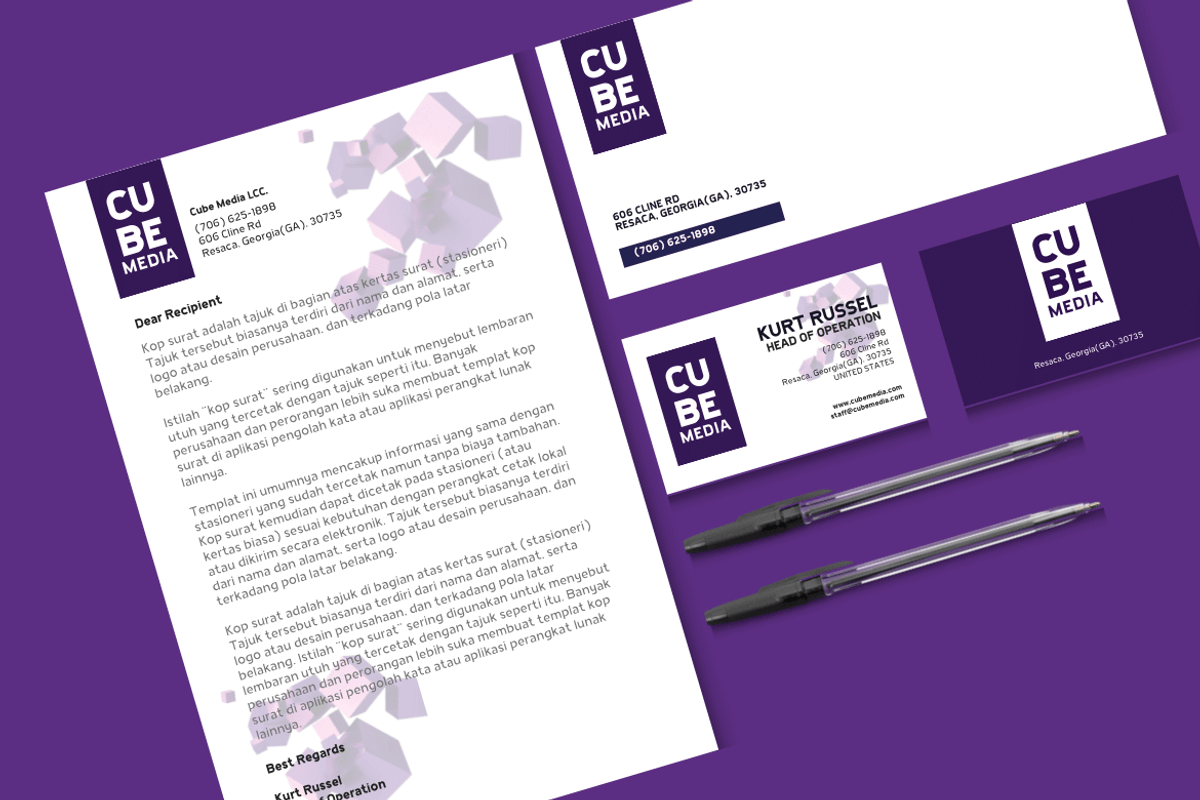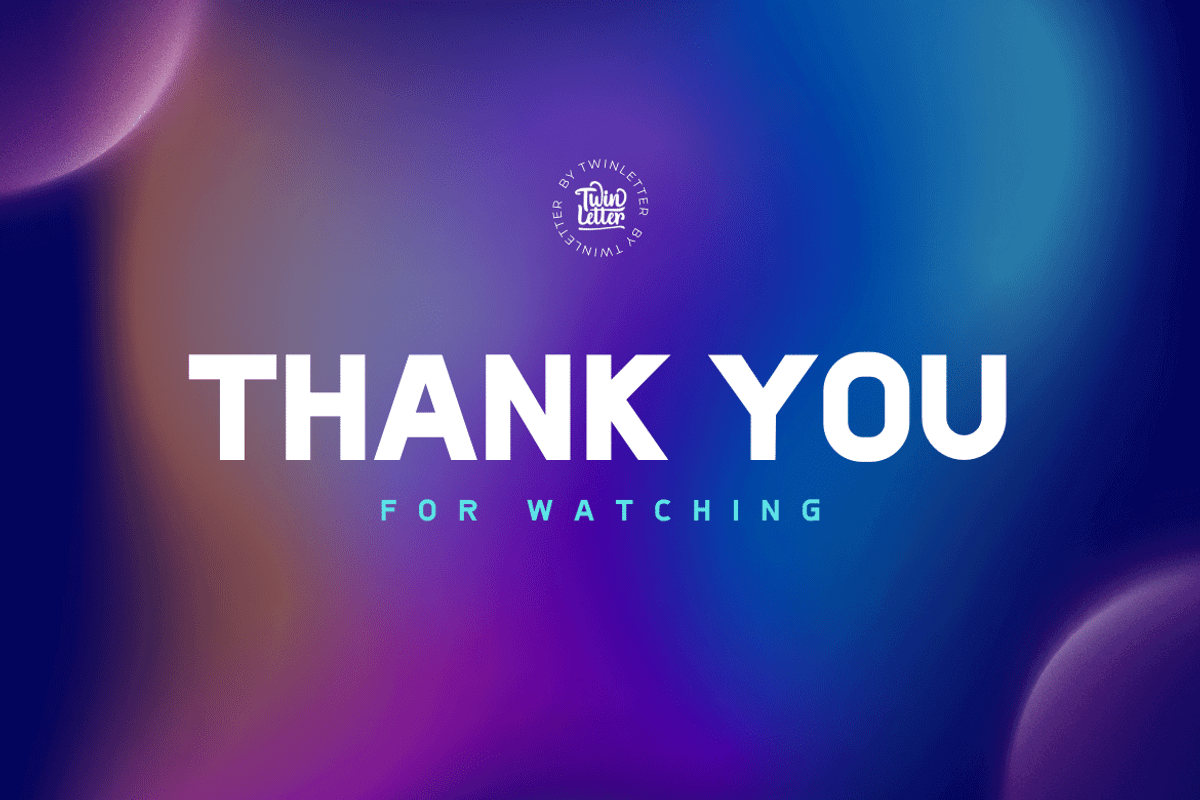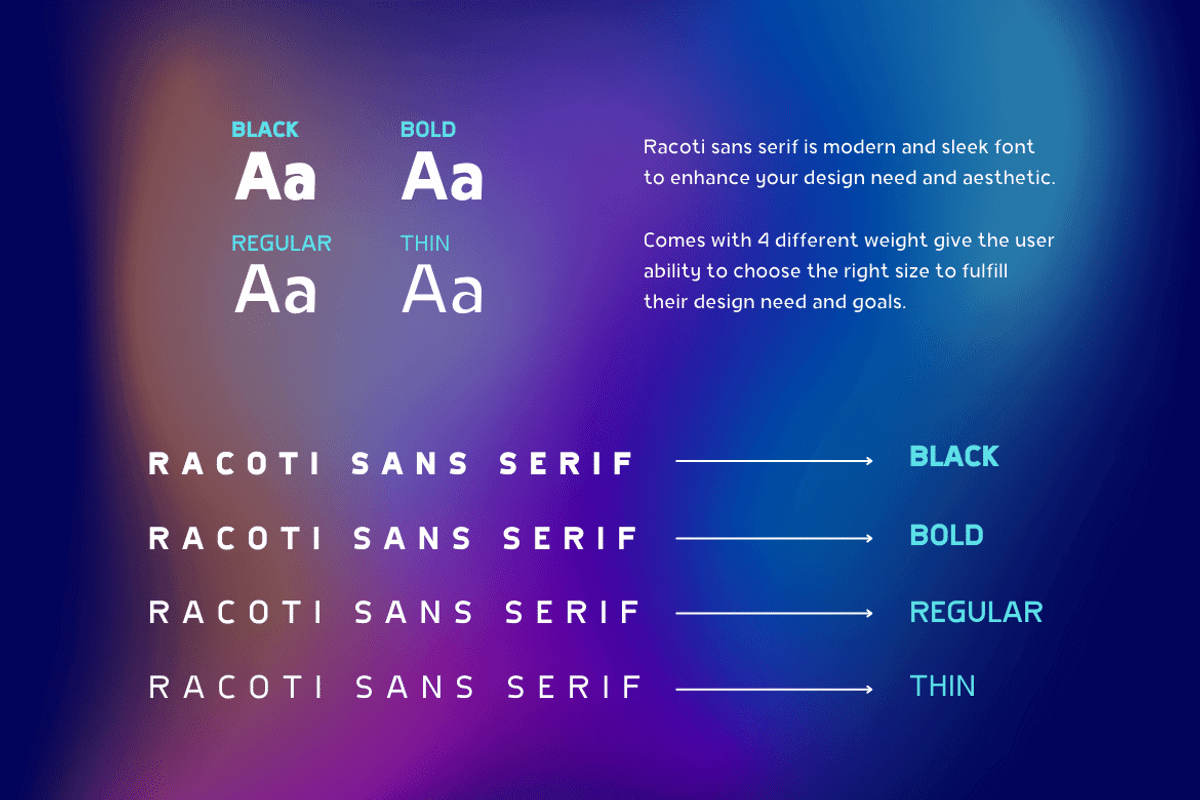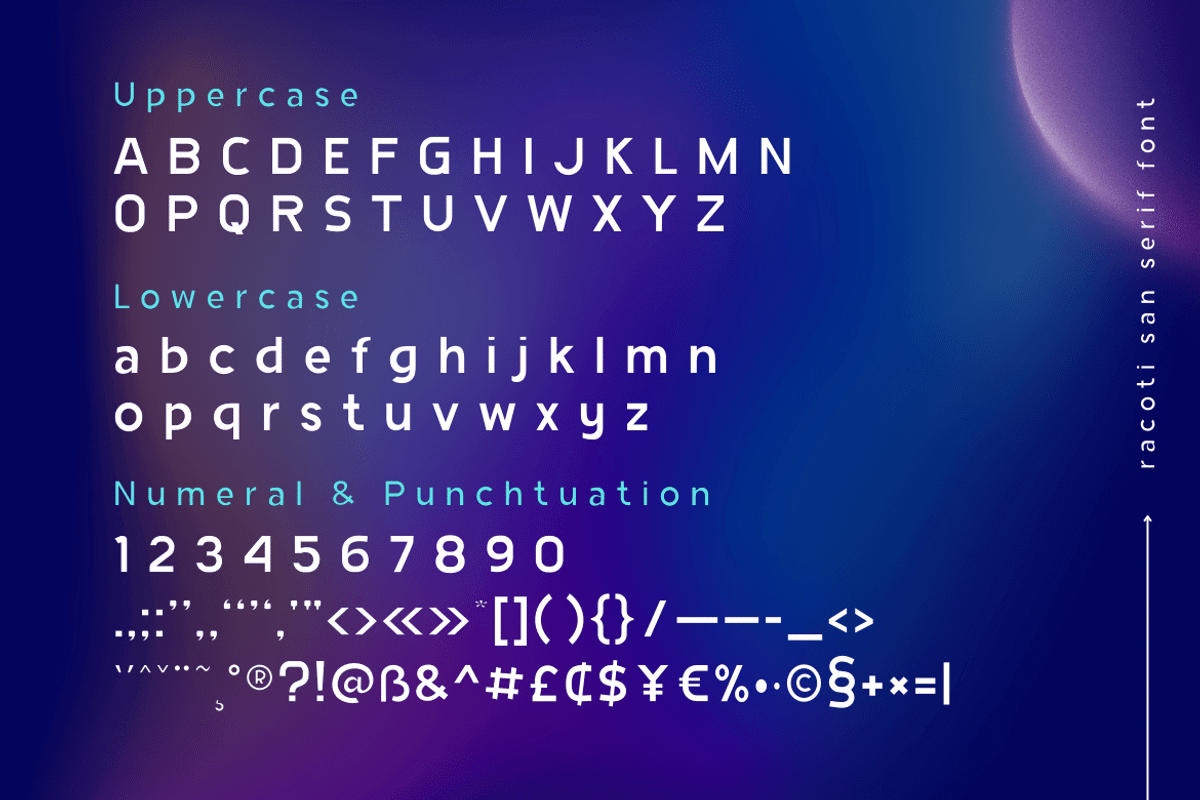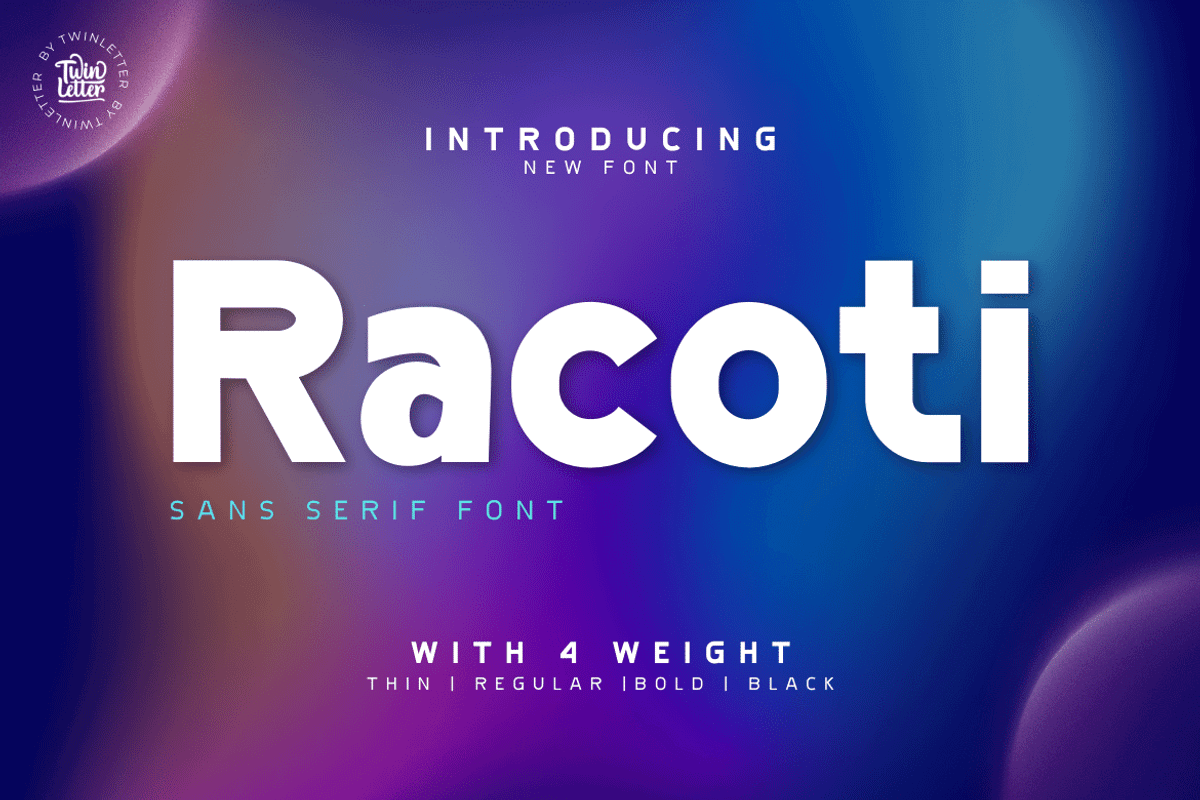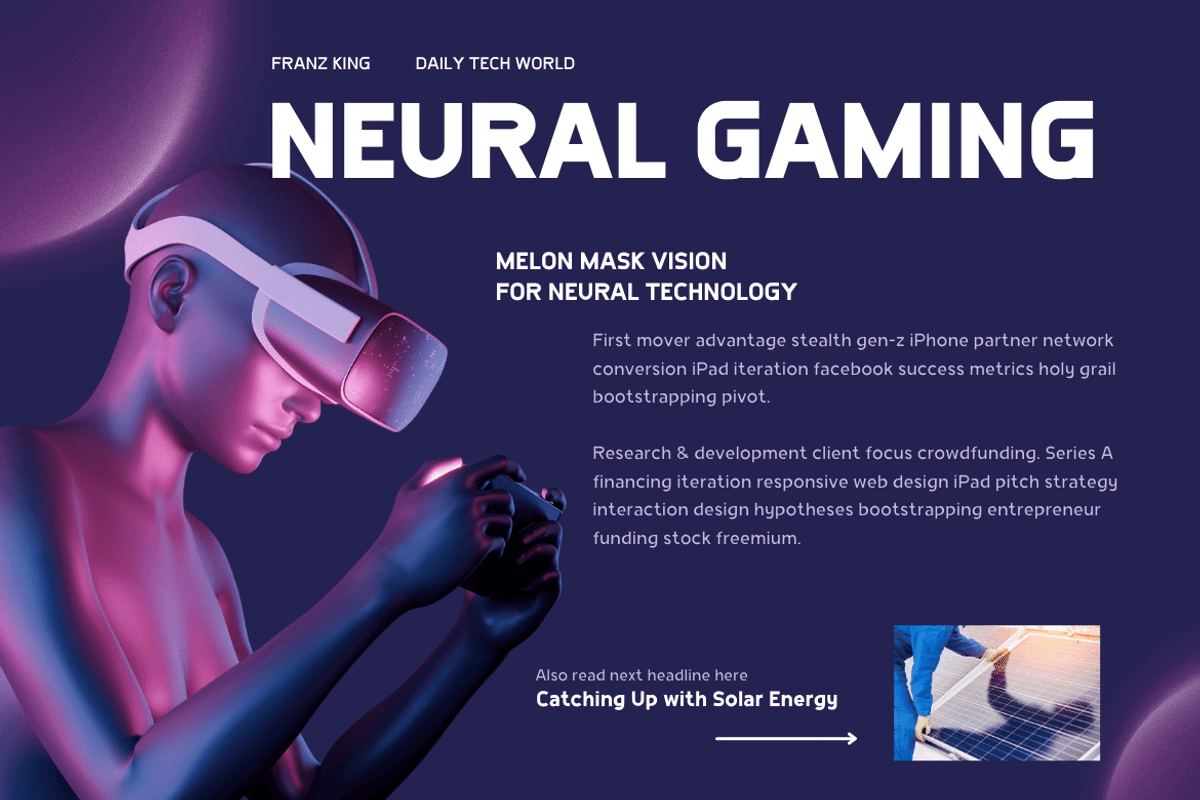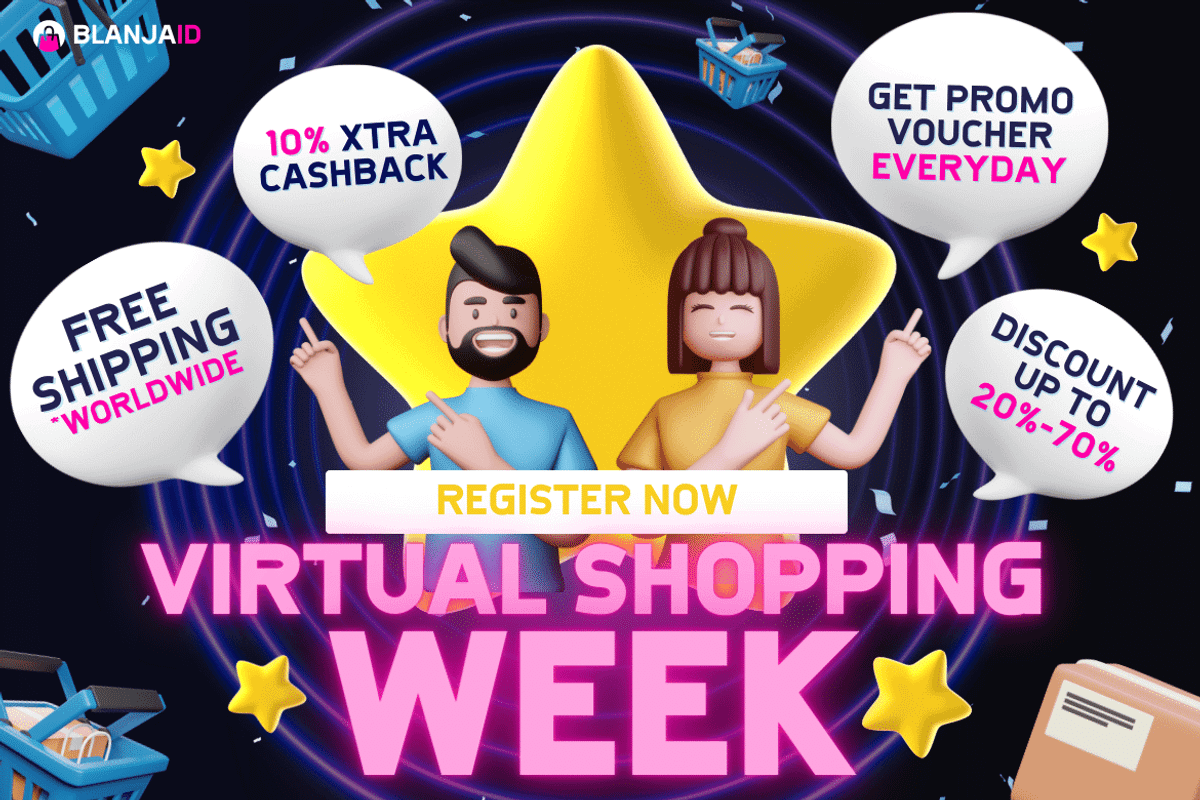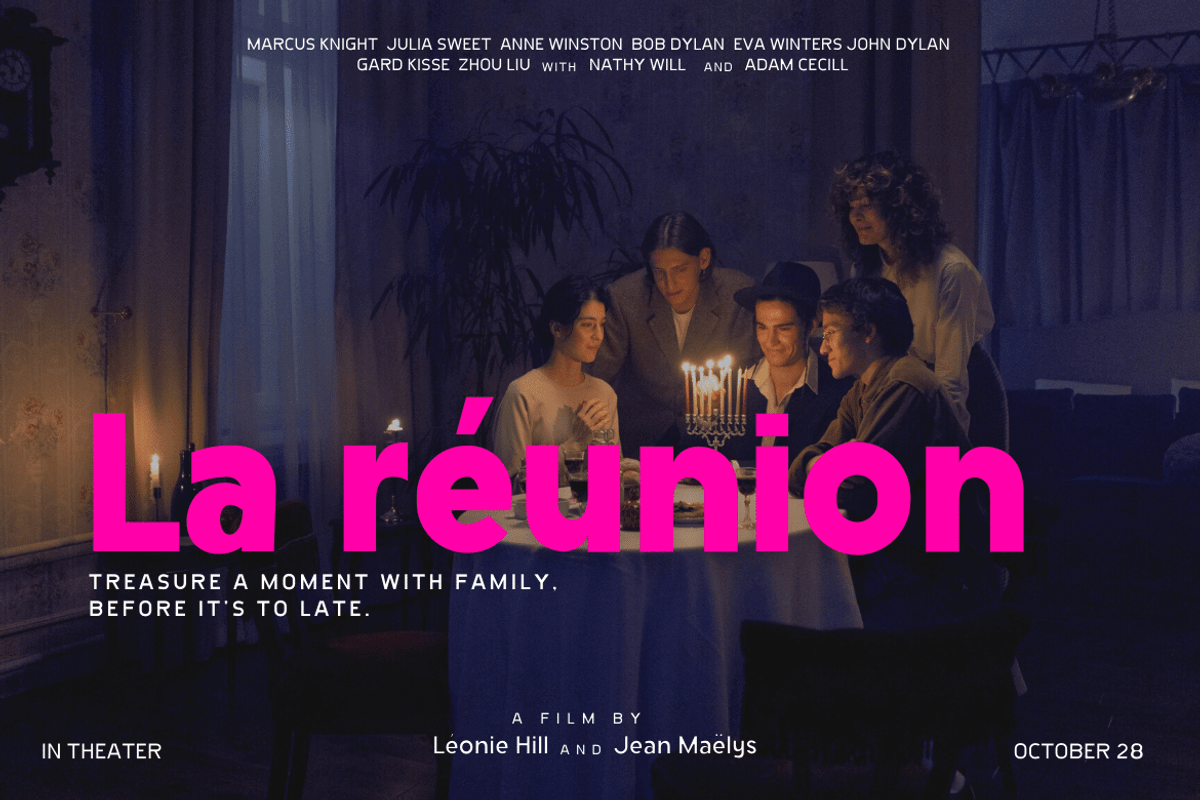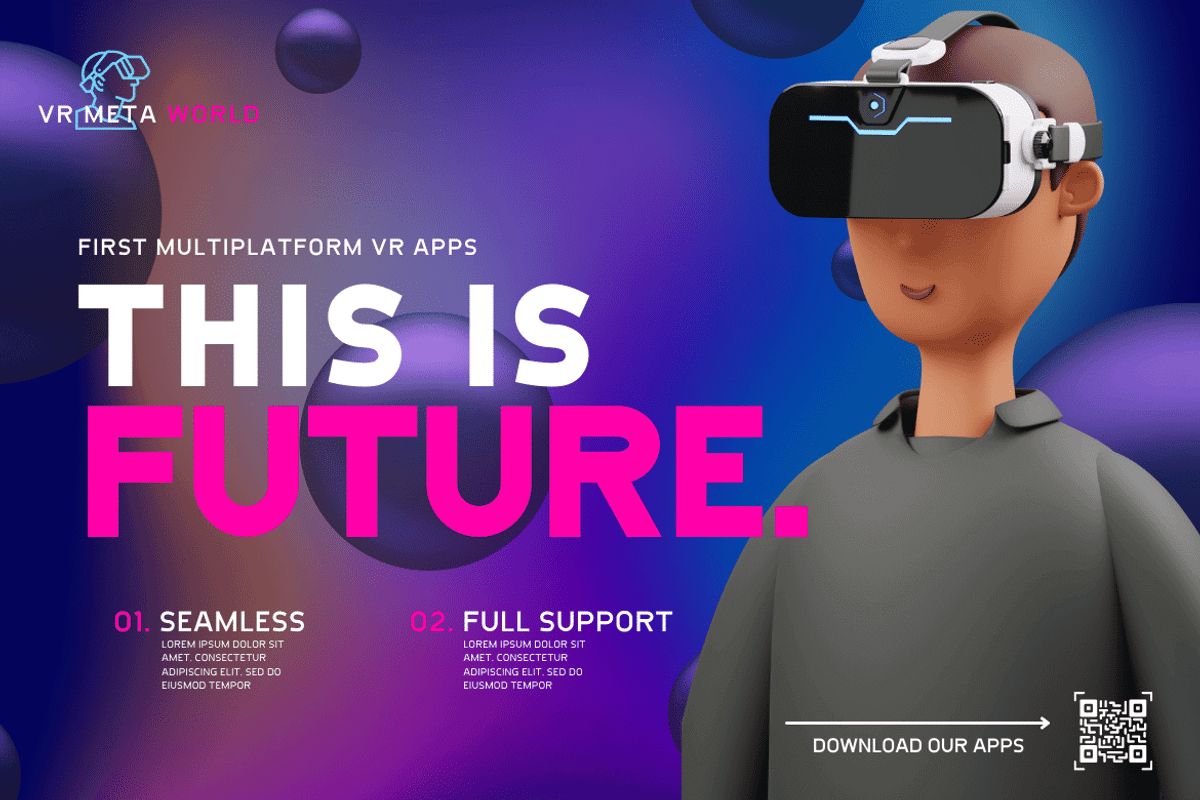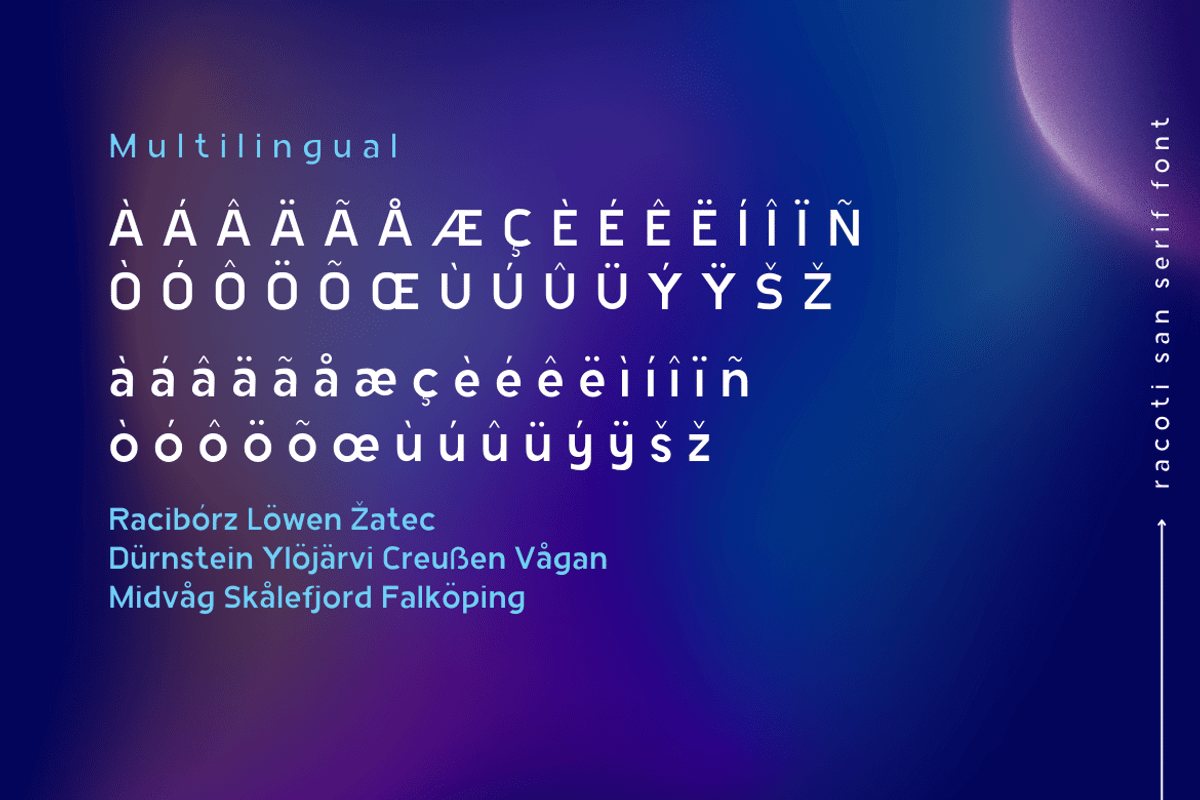
Racoti
Racoti is a sans serif font with four weights: Light, Regular, Medium, and Bold. It has a simple, calm, and elegant aesthetic. This font is ideal for a wide range of projects, including quotes, websites, logos, greeting cards, branding materials, and more!
of course, your various design projects will be perfect and extraordinary if you use this font because this font is equipped with a font family, both for titles and subtitles and sentence text, start using our fonts for your extraordinary projects.